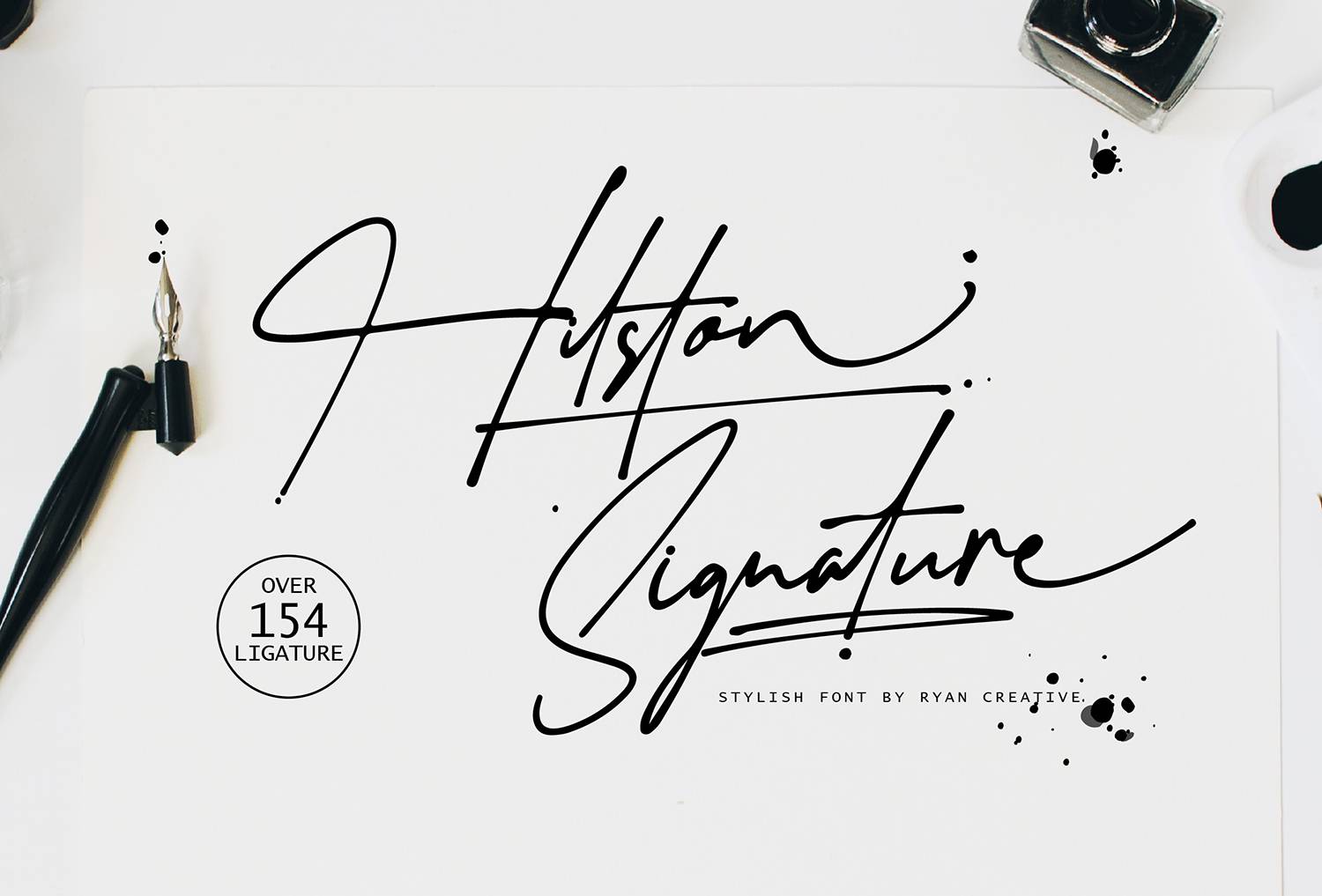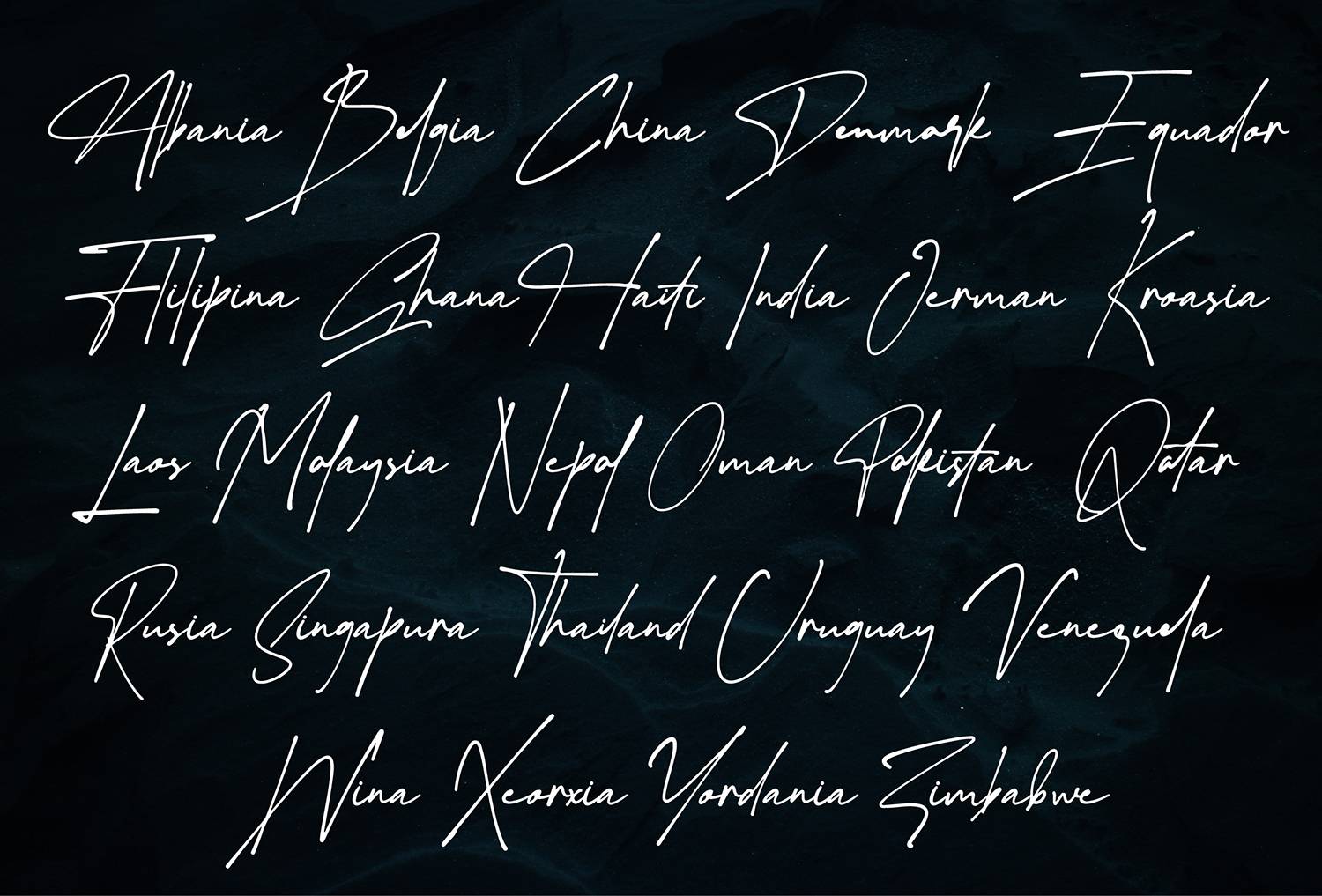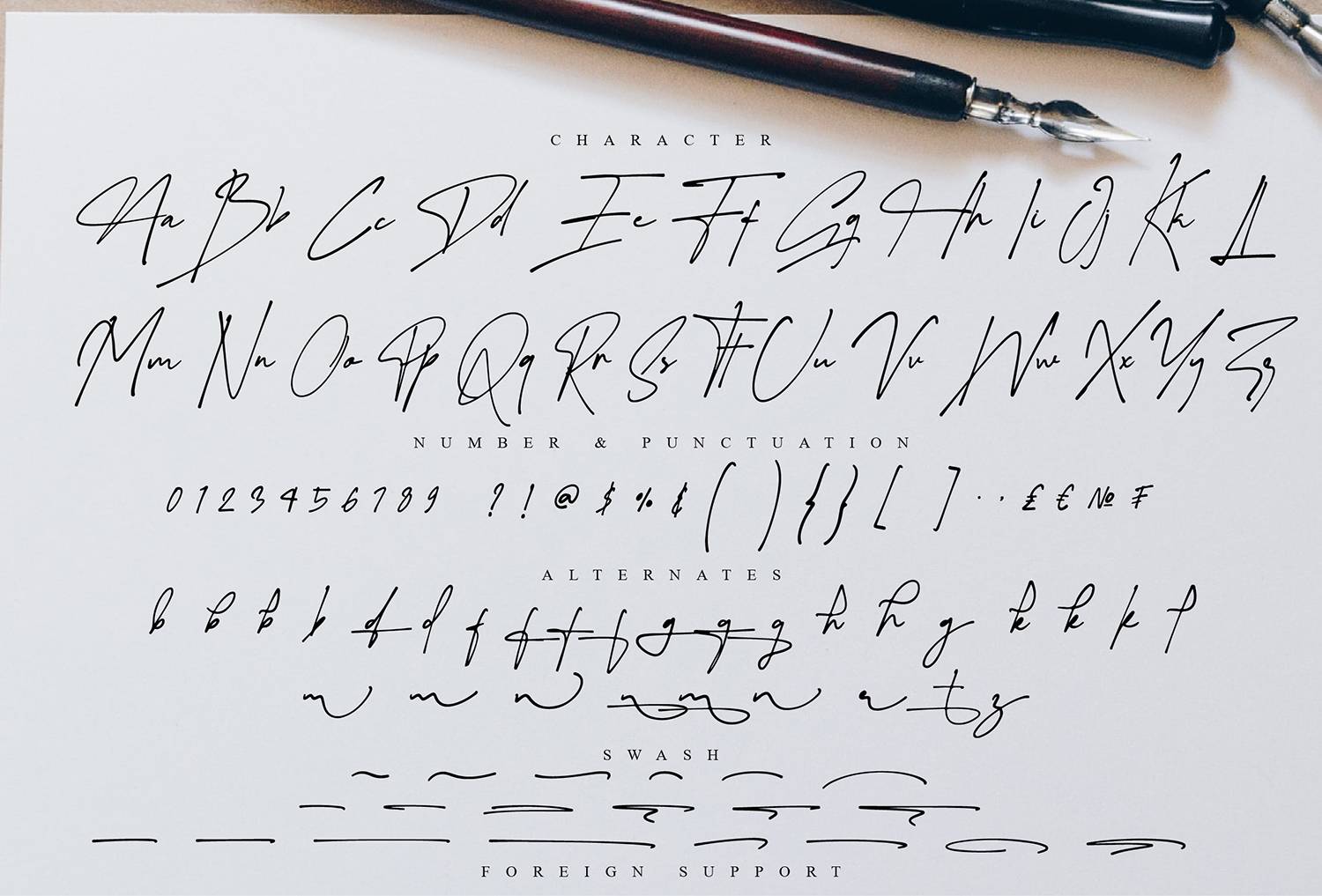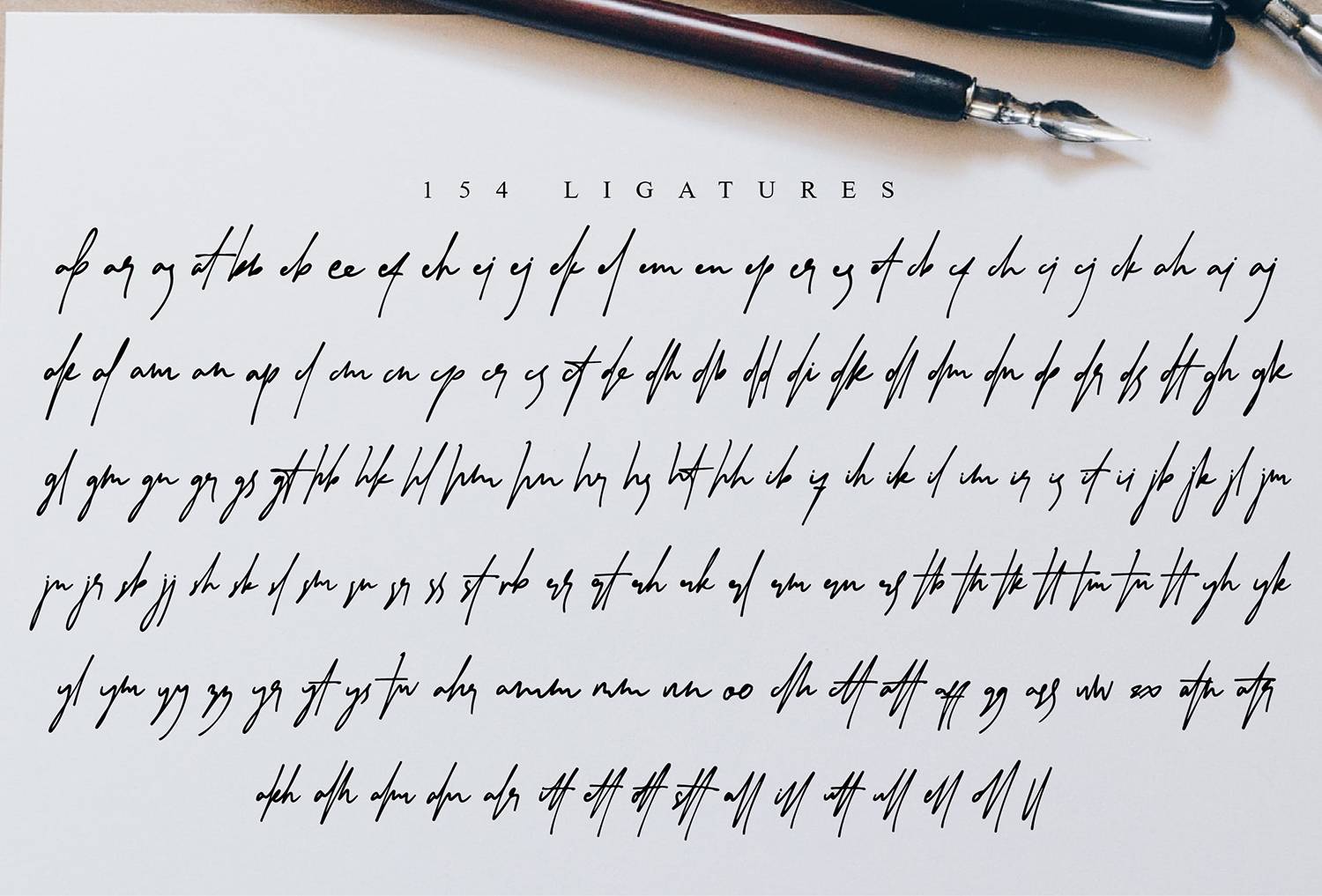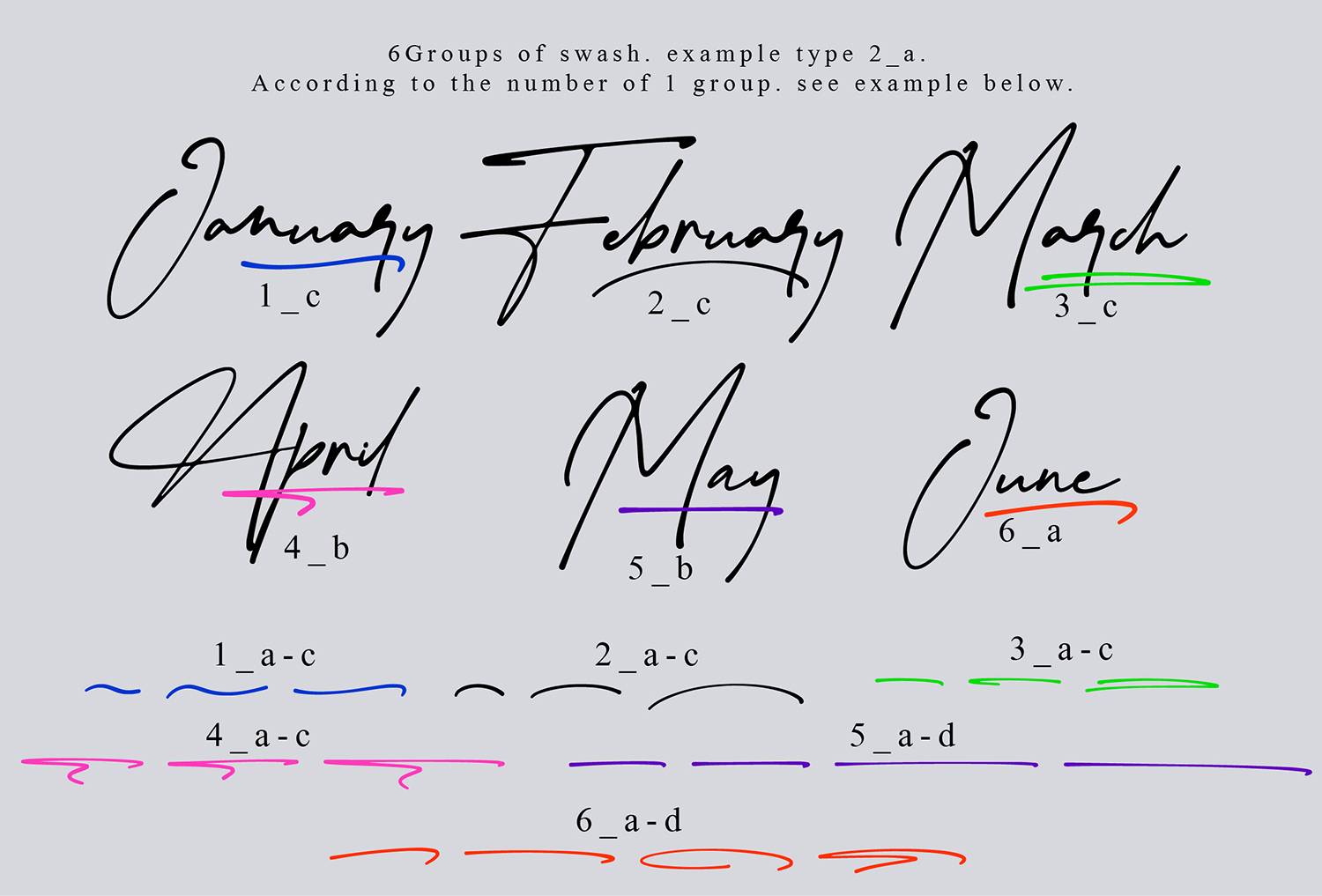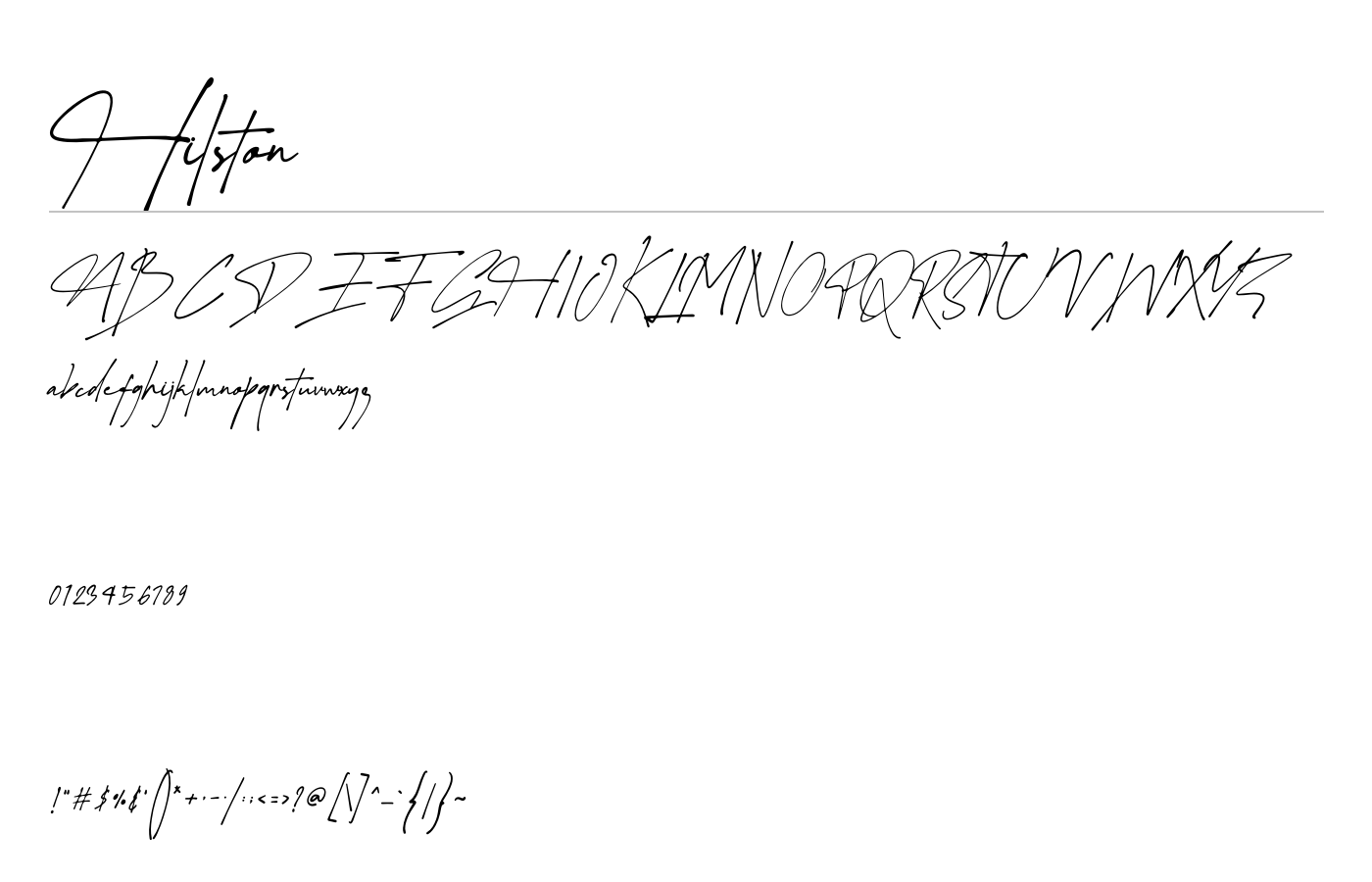
Hilston is a delicate, handwritten script font characterized by its thin, flowing strokes and casual elegance. With its narrow letterforms and graceful, slightly irregular lines, it brings a personal and artistic touch, perfect for adding sophistication and warmth to branding, invitations, and editorial designs. This font works best where a refined, intimate feel is desired, such as fashion logos, lifestyle blogs, and creative projects.
Hilston Font
About Hilston Font
| Font family | Hilston Font |
| Designer | Akhmad riyan creative |